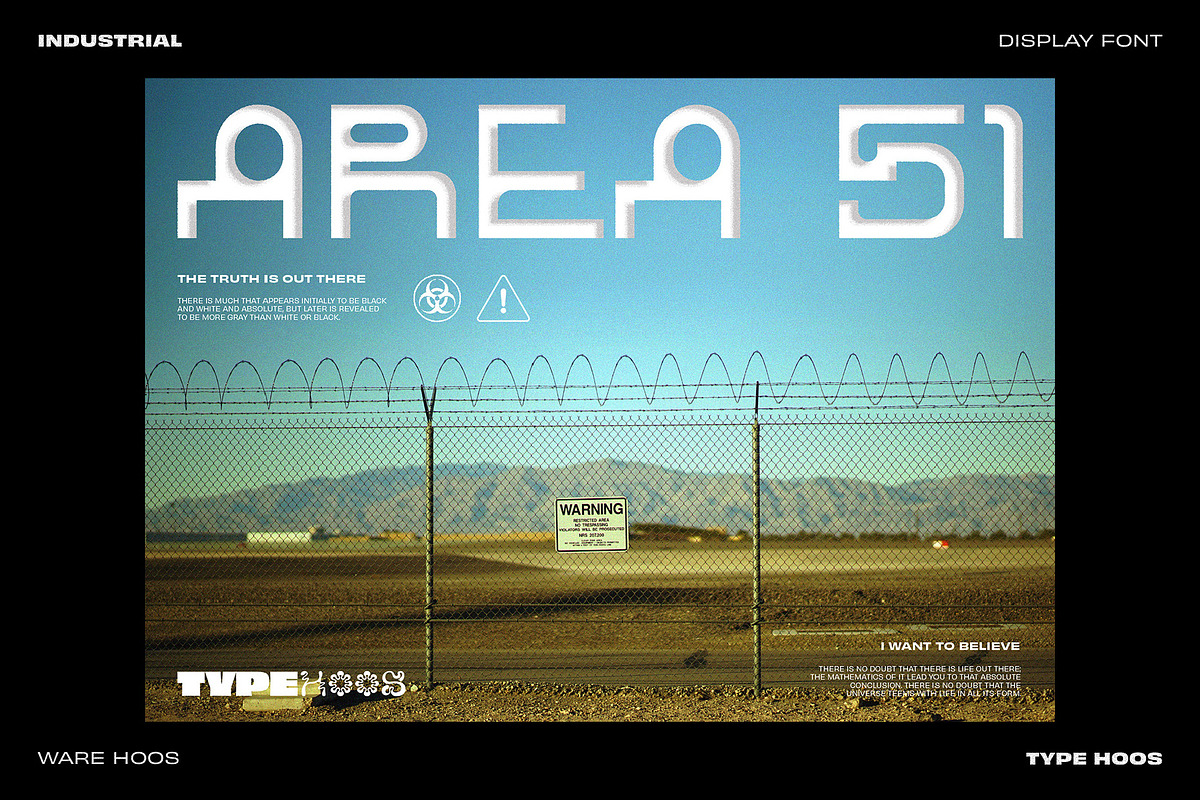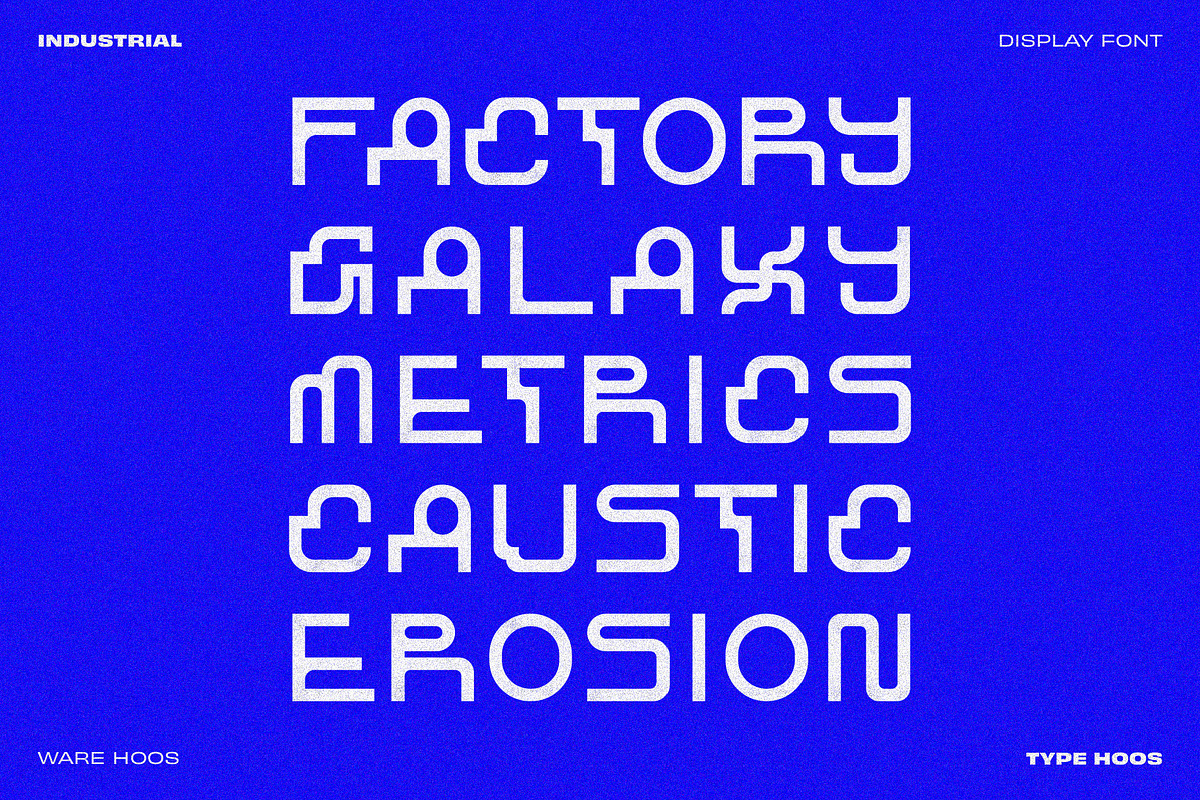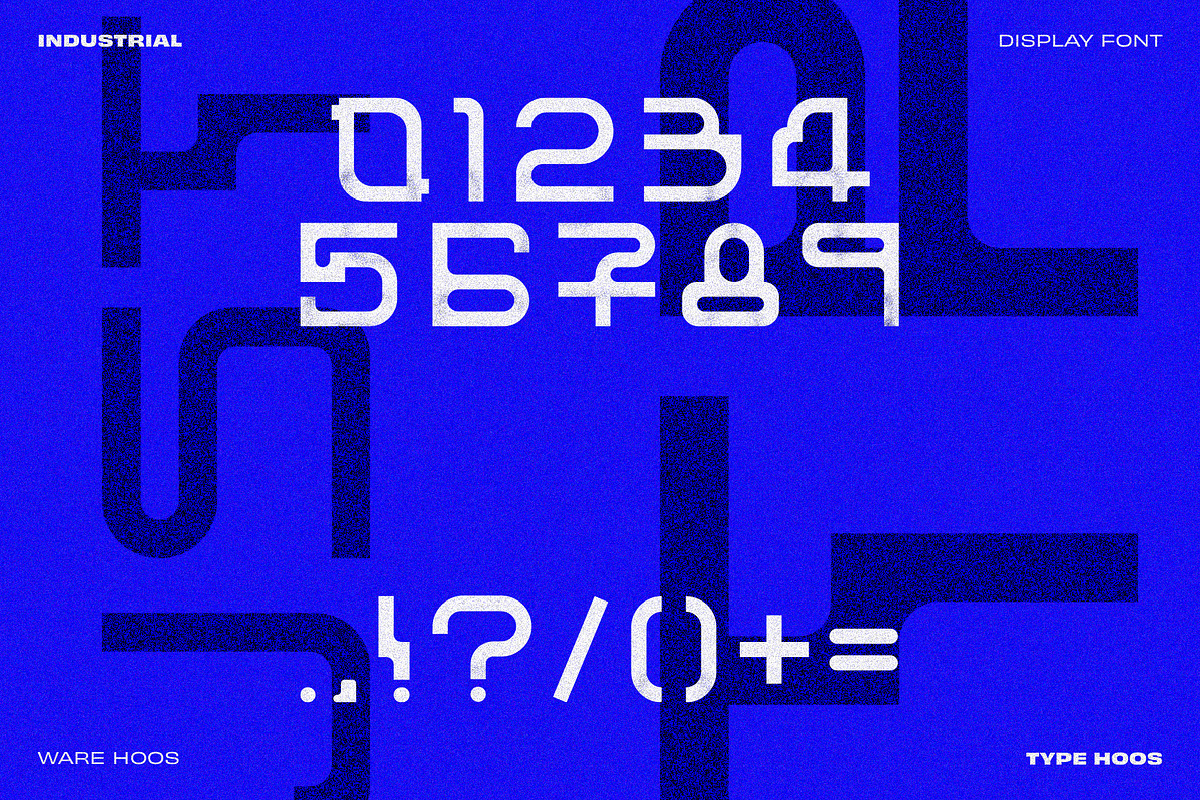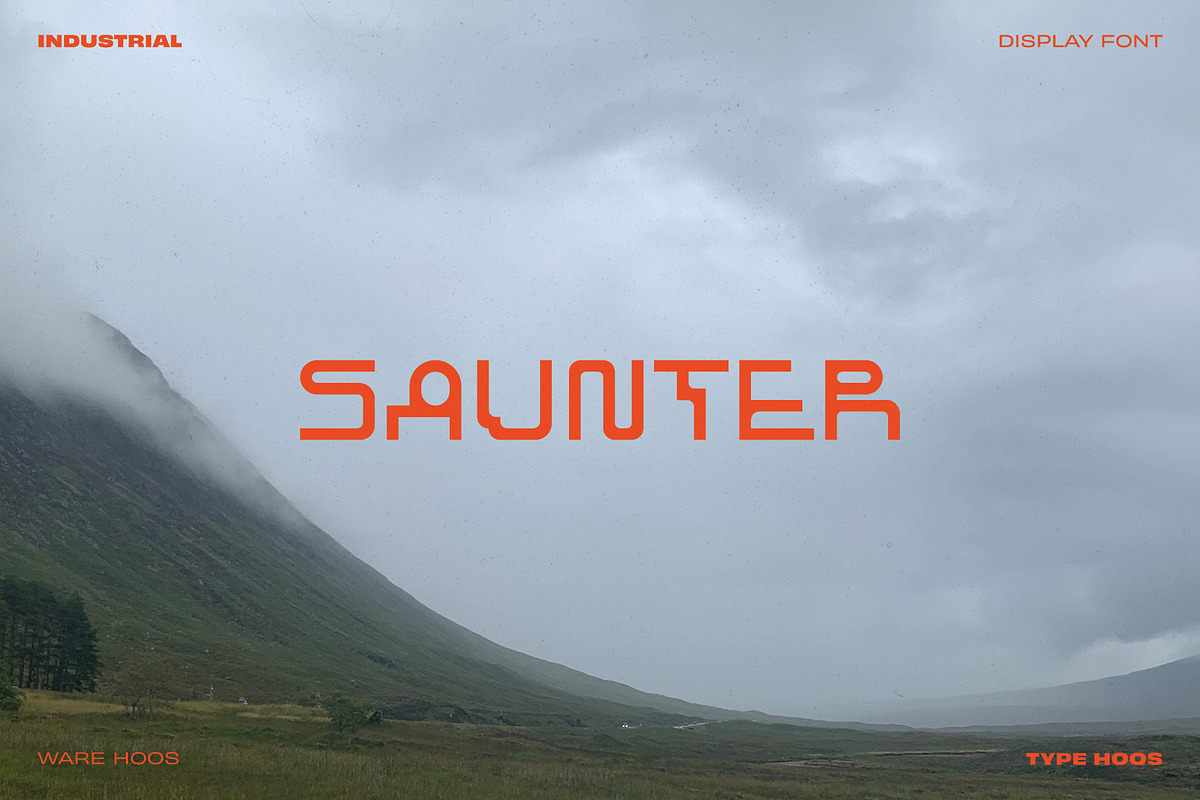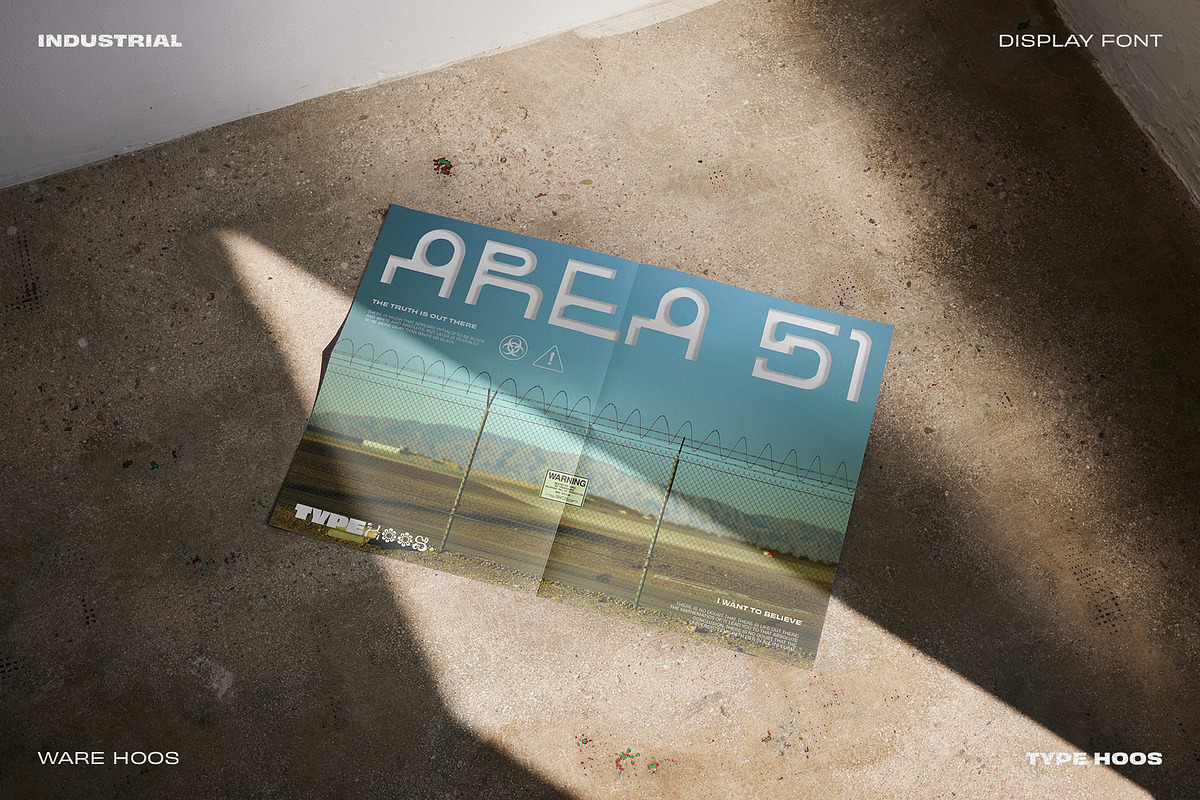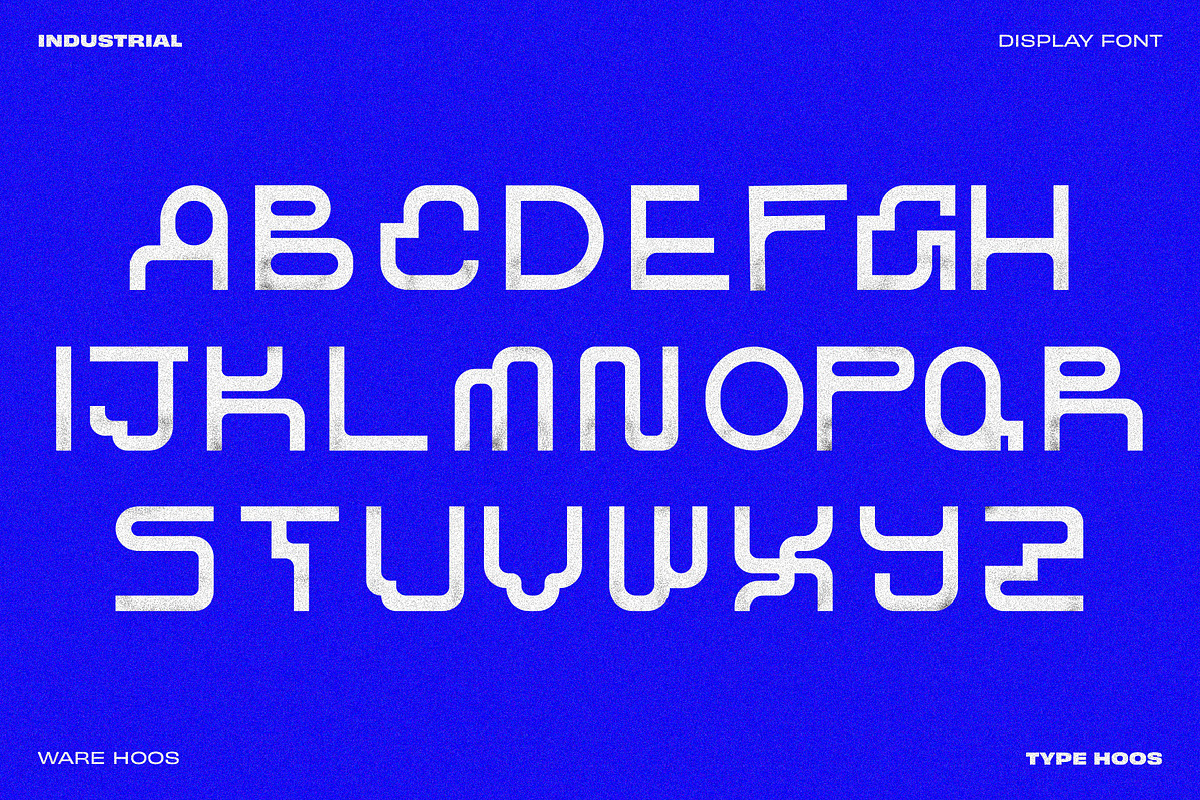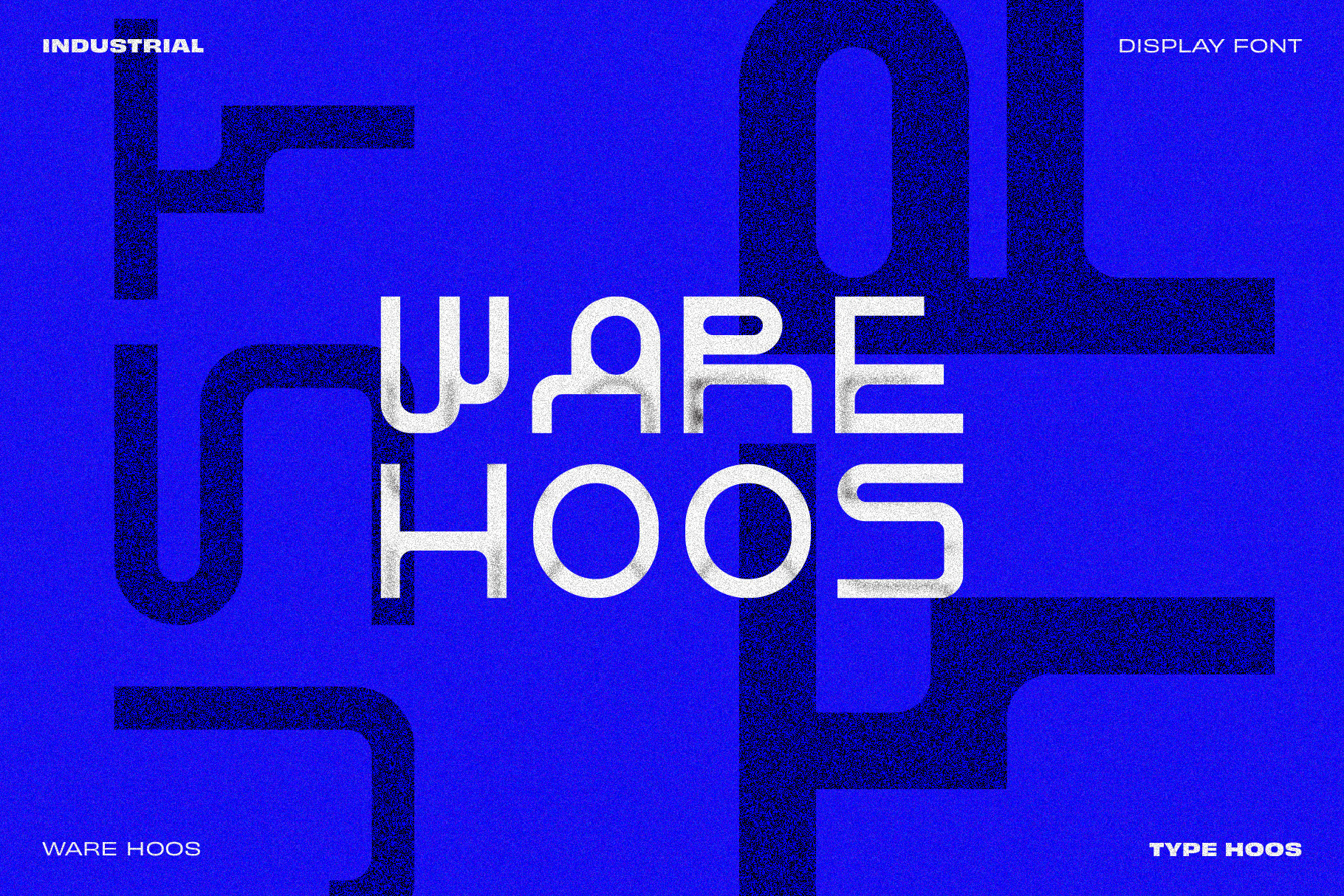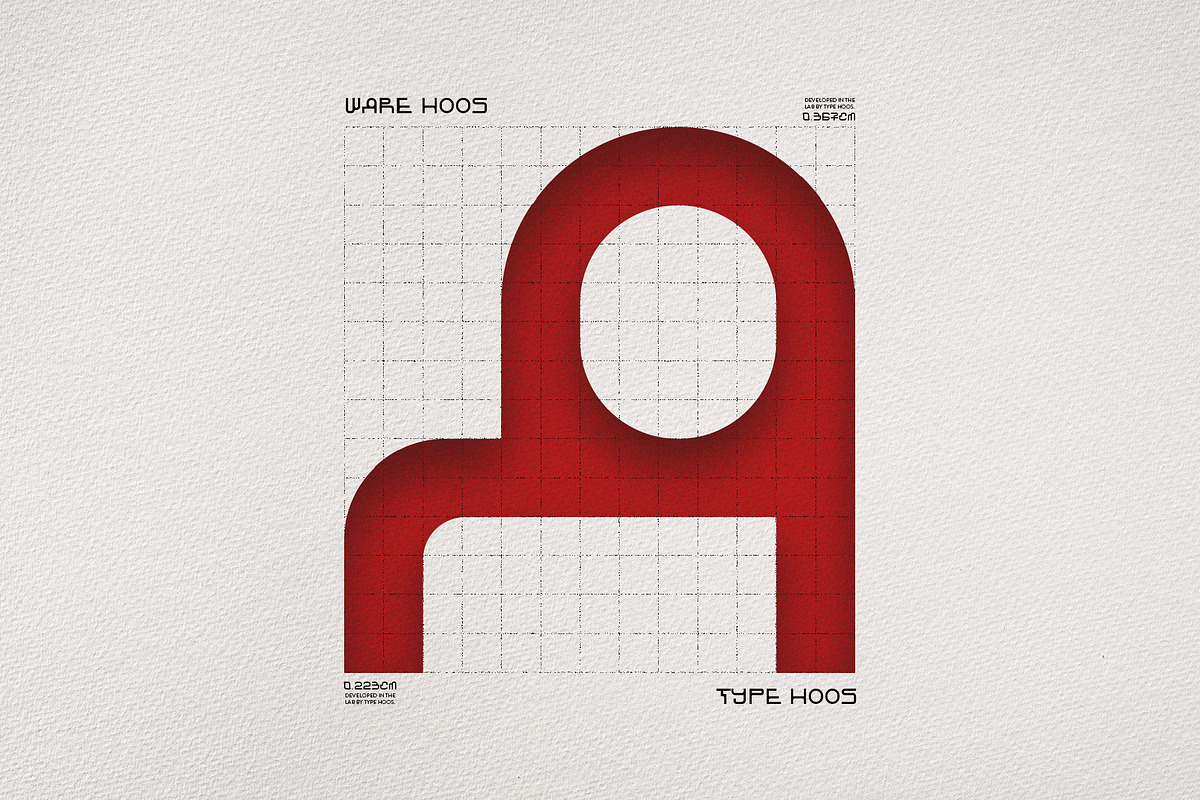
Ware Hoos - Display Font
A bold geometric font created on a grid system. Each letter has it's own unique structure, forming a ridged industiral style. A heavy hitter, this font is perfect for posters, ad campaigns, logos and more.